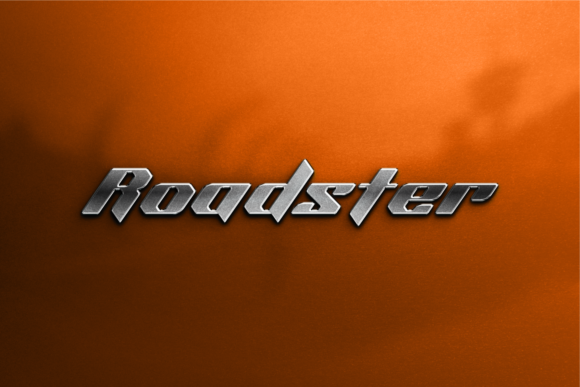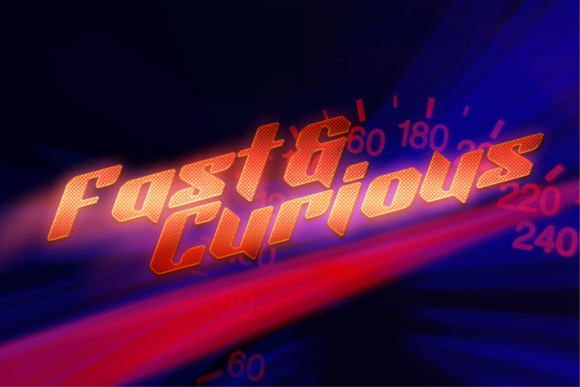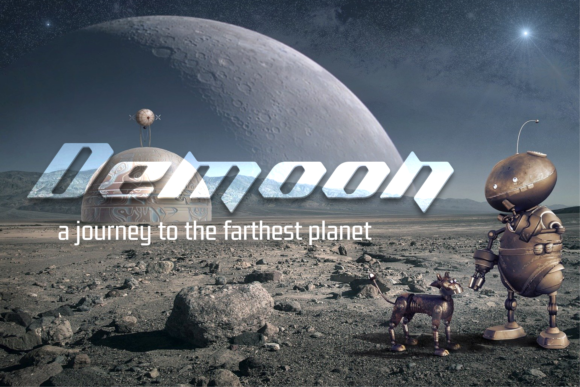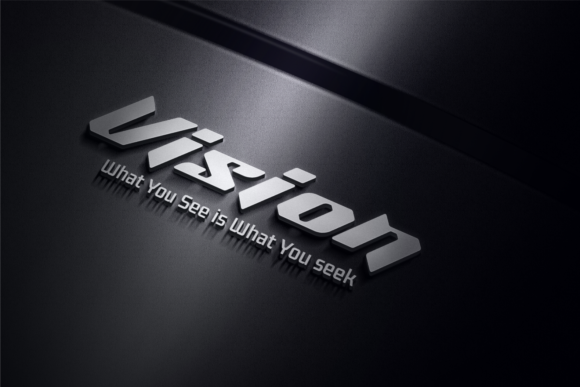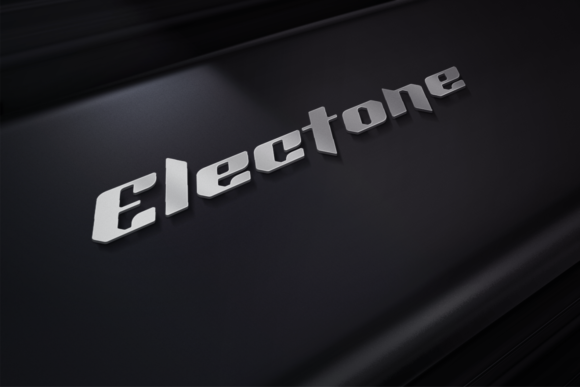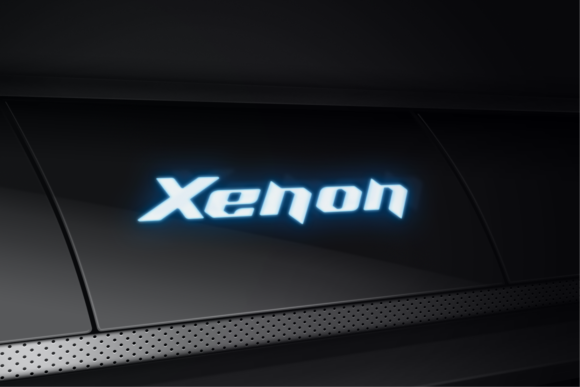
Introduction to Aeroblades Font
As a designer, there’s nothing quite like the thrill of bringing a creative project to life. The rush of adrenaline as you experiment with different fonts, colors, and layouts, all while trying to convey the perfect message to your audience. And when you stumble upon the perfect font, it’s like a match made in heaven. For me, that font is Aeroblades Font – a stunning, futuristic display typeface that never fails to elevate any design.
Whether you’re working on a poster, a logo design, or a branding project, Aeroblades Font is the perfect design resource to take your creative project to the next level. Its sleek, modern design makes it ideal for use on a transparent background, adding a touch of sophistication to any design. And the best part? You can download it for free, making it a high-quality resource that won’t break the bank.
Key Features of Aeroblades Font
- Aeroblades Font is a high-quality design resource, ideal for creative projects requiring a sleek and modern aesthetic.
- This font family is available for free download and includes a range of styles and weights, making it a versatile choice for designers.
- Aeroblades Font features a unique, futuristic design with a transparent background, allowing for seamless integration into various design elements.
- Aeroblades Font is designed to be highly scalable, with a resolution of up to 300 DPI, making it suitable for use in a variety of applications, from small logos to large-scale graphics.
- The font family includes a range of styles, from bold and condensed to light and script, providing designers with a comprehensive set of tools for creating visually striking designs.
- Aeroblades Font is a popular design resource, widely used in various creative projects, including graphic design, UI/UX design, and digital art.
Honest Review: Aeroblades Font
I recently came across the Aeroblades Font, and I was excited to put it through its paces. As a designer, I’m always on the lookout for high-quality design resources to elevate my creative projects.
First impressions: ✨ The Aeroblades Font is a sleek and modern sans-serif font that’s perfect for creating a professional look. It’s available for free download, making it an excellent addition to any designer’s toolkit.
- Transparent background: The font’s transparent background makes it easy to combine with other design elements.
- High-quality design: The font’s clean lines and modern aesthetic make it a great choice for a wide range of creative projects.
However, there are a few limitations to consider: ⚠️ The font’s limited character set may make it less suitable for projects that require a wide range of characters.
Overall, I’m impressed with the Aeroblades Font. It’s a high-quality design resource that’s perfect for adding a touch of modern style to your creative projects. While it may not be suitable for every project, it’s definitely worth adding to your design toolkit.
The Aeroblades Font is ideal for creating professional-looking designs, such as logos, brochures, and business cards. It’s also great for creating digital assets, like social media graphics and presentations.
To get the most out of the Aeroblades Font, use it in conjunction with a transparent background to create a sleek and modern look. Experiment with different font sizes, colors, and styles to find the perfect combination for your design.